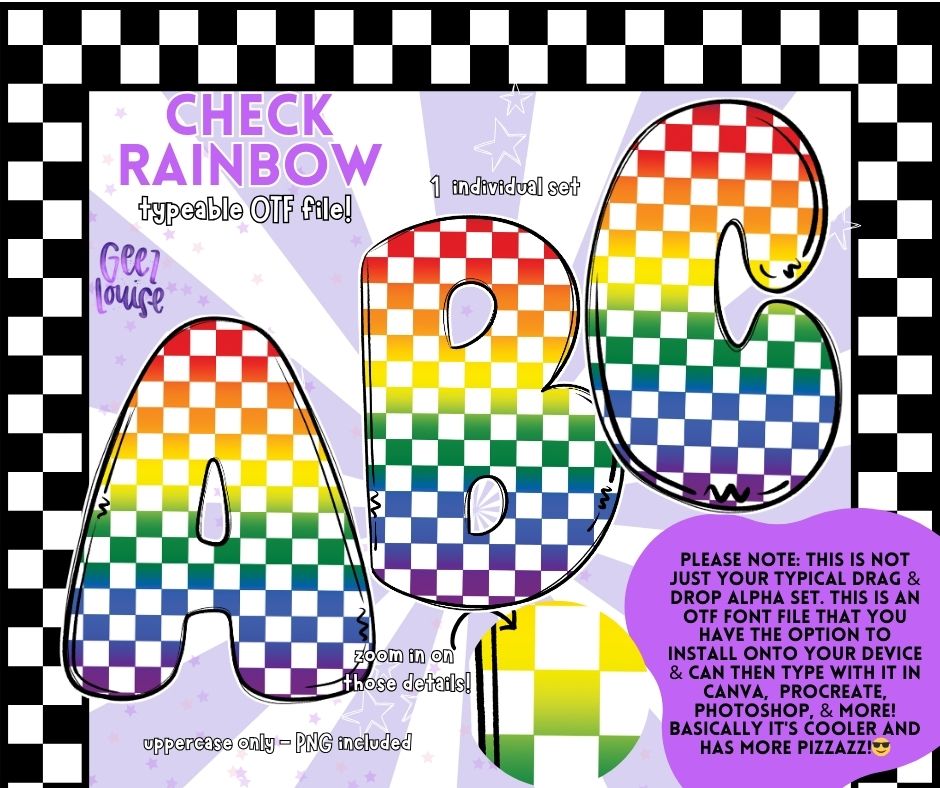
Check Rainbow - Colorful Checkerboard OTF Font + PNG Alpha Set
Bring the color explosion with our Check Rainbow OTF Font! 🌈🖤 This vibrant rainbow checkerboard font is packed with retro energy, bold colors, and playful vibes — perfect for sublimation designs, custom shirts, Pride projects, and colorful party crafts.
✔️ Uppercase letters included for maximum pop
Whether you're creating bold apparel, rainbow merch, or just adding that extra WOW factor, this colorful checkered font is ready to shine. 🎨🚀